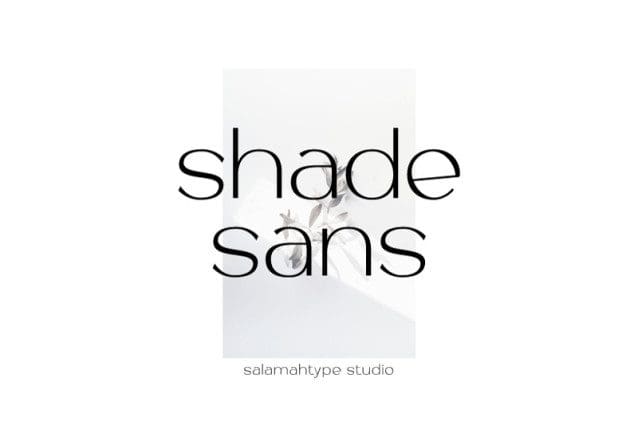
Shade Sans Modern Font
Shade Sans Modern Font is a clean sans serif font. This font perfect for branding projects, logos, social media posts, advertisements, product packaging, wedding invitations, product designs, label, photography, watermark, stationery and so much more.